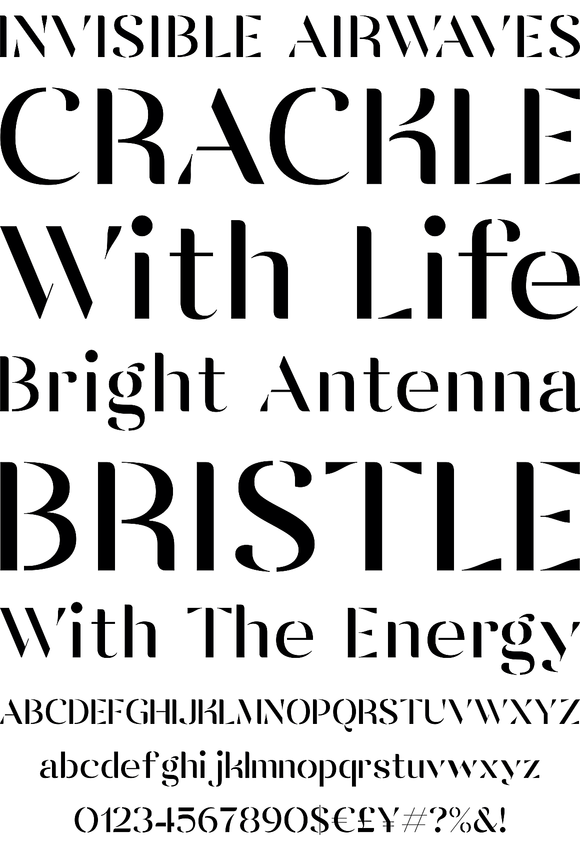
Vanage Font
Vanage is is an elegant high contrast contemporary sans-serif stencil typeface provides advanced typographical support with features such as ligatures and alternate characters. It is rooted in the style of a classic high contest typeface, excluding the typical serifs and ball terminals. Vanage is made for display use, Available in 5 weights and their Italics.